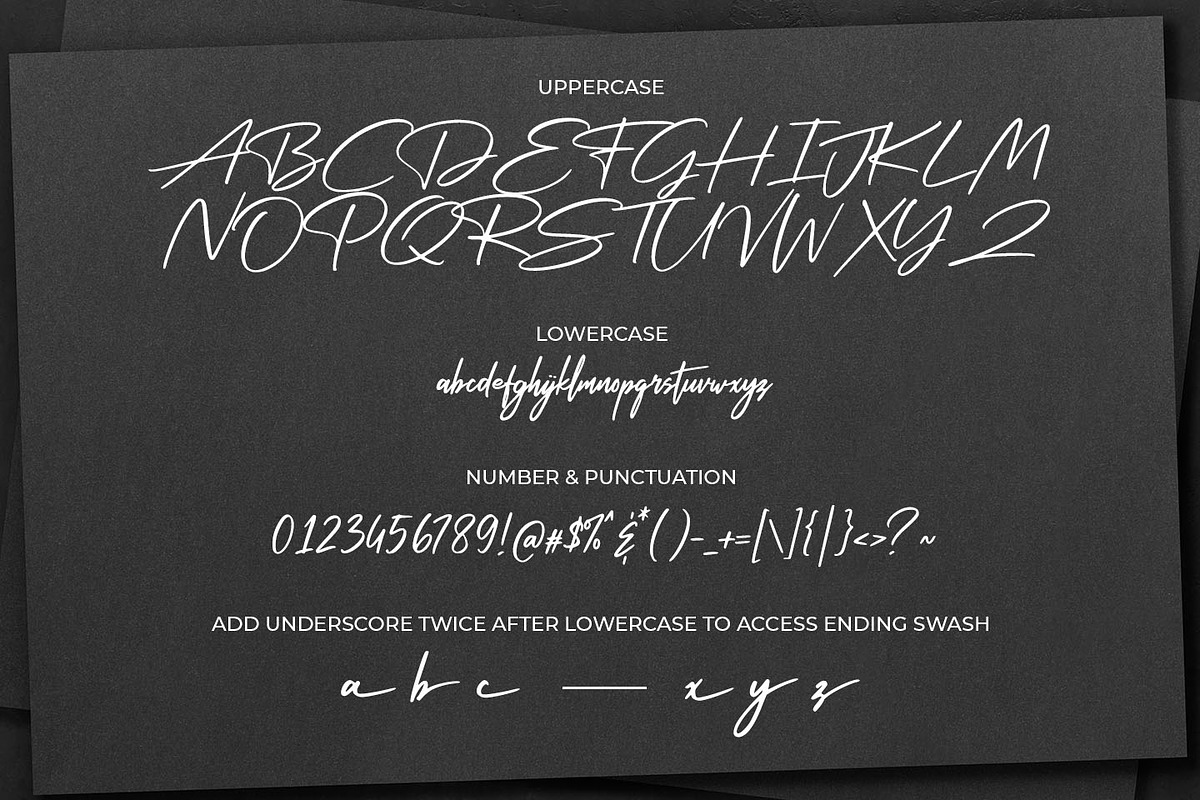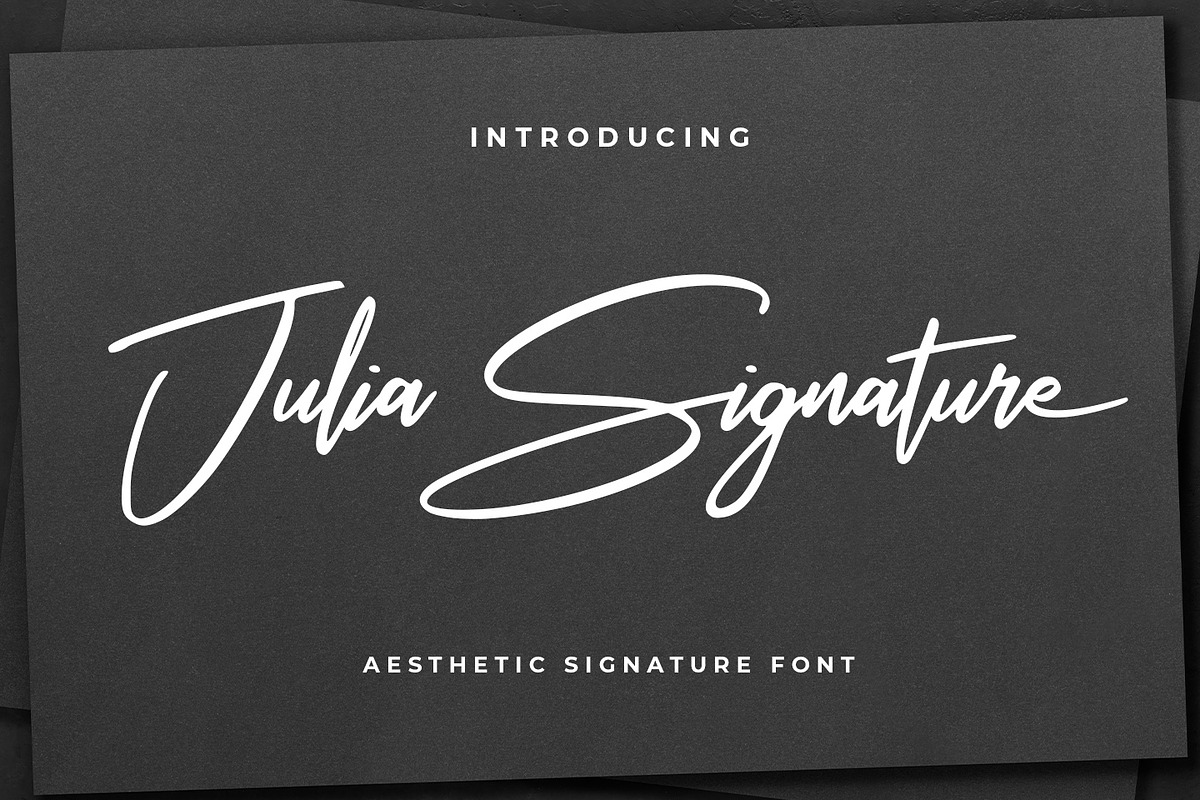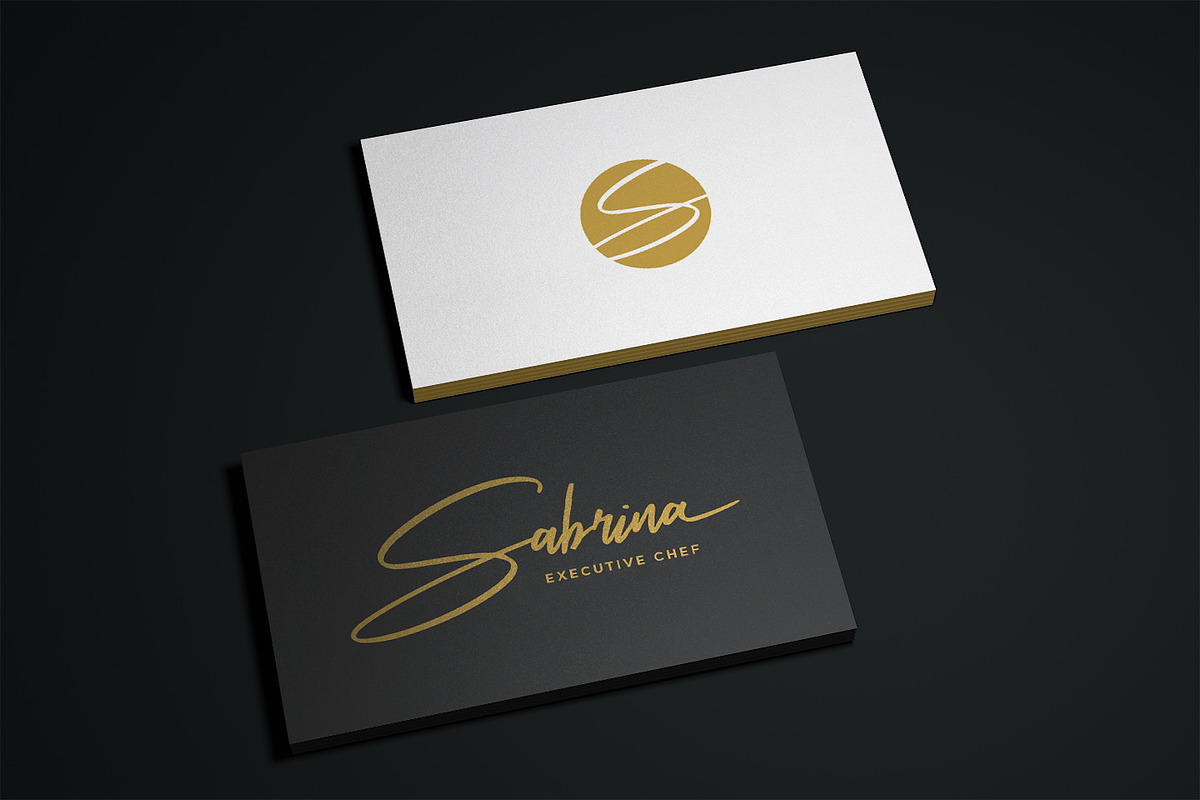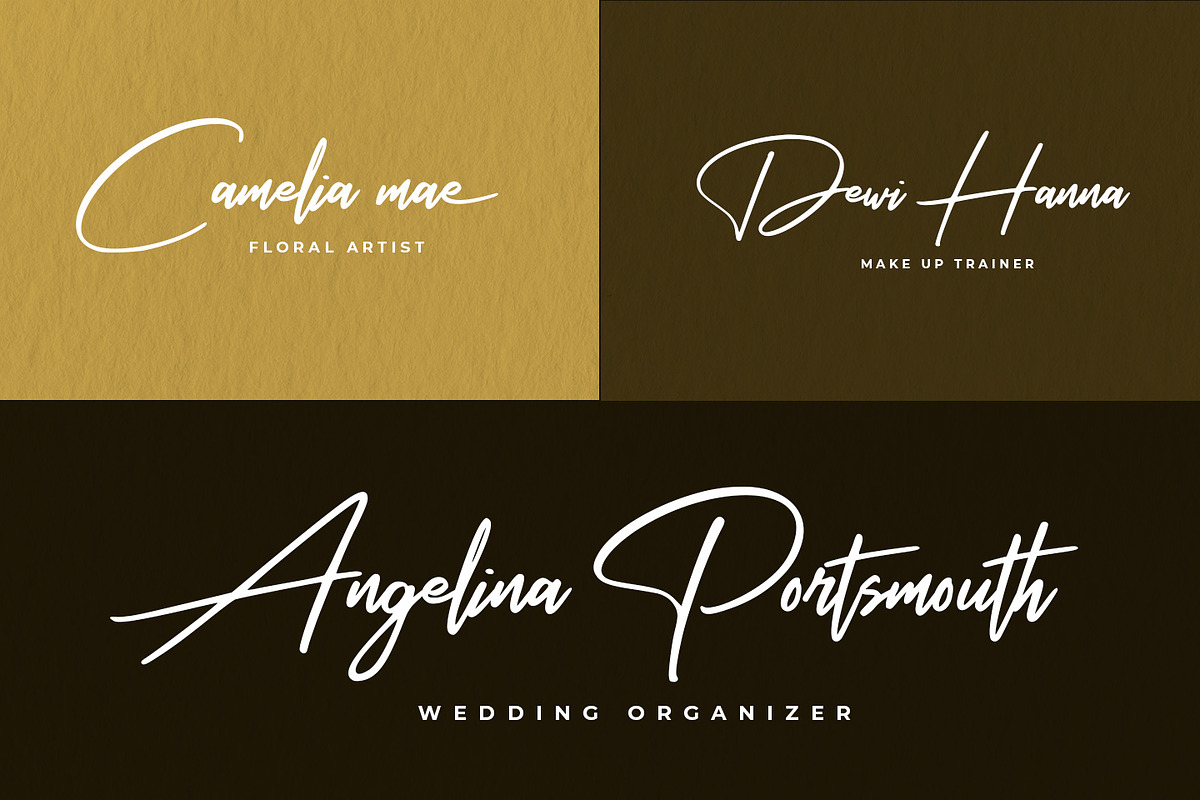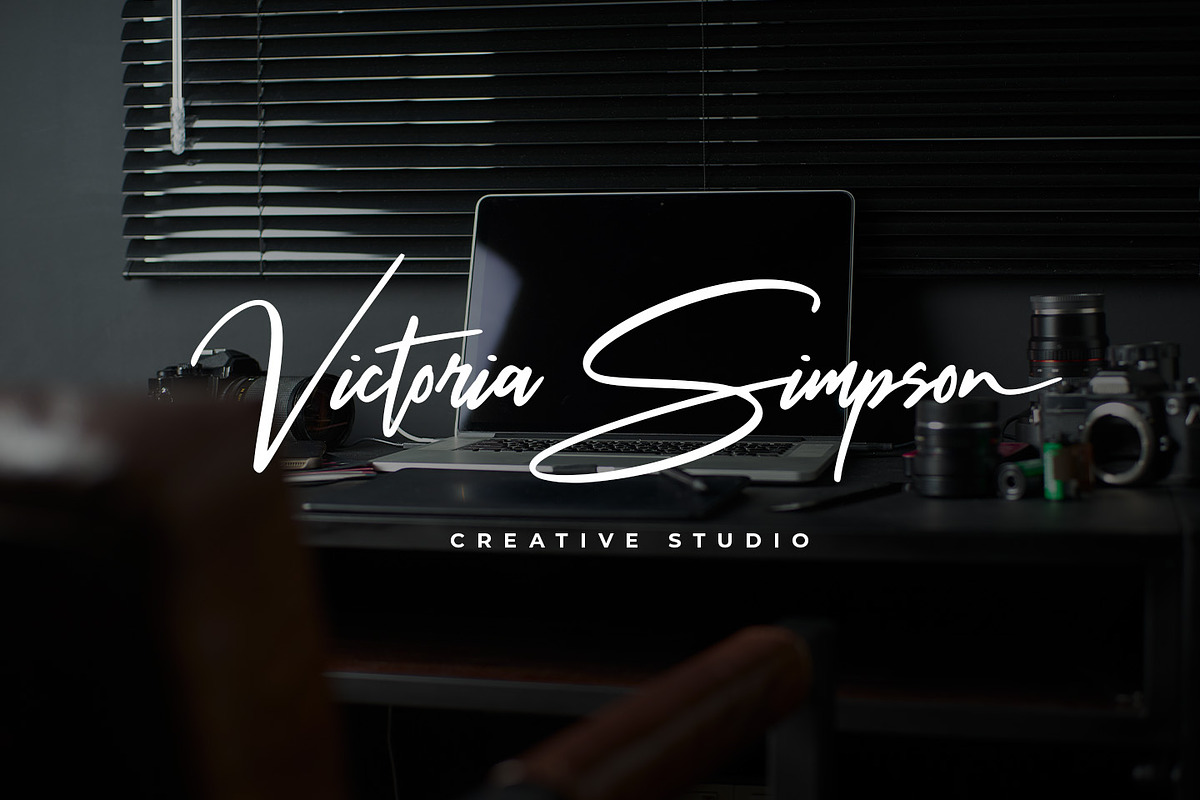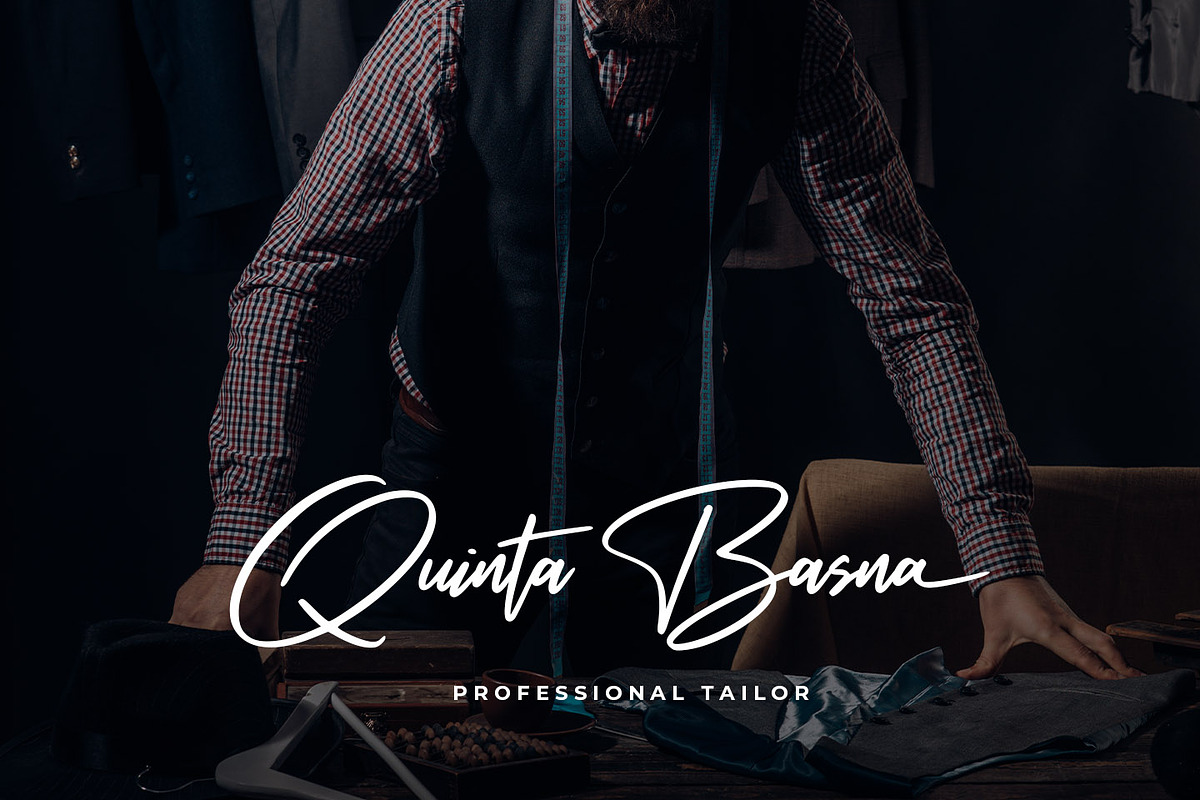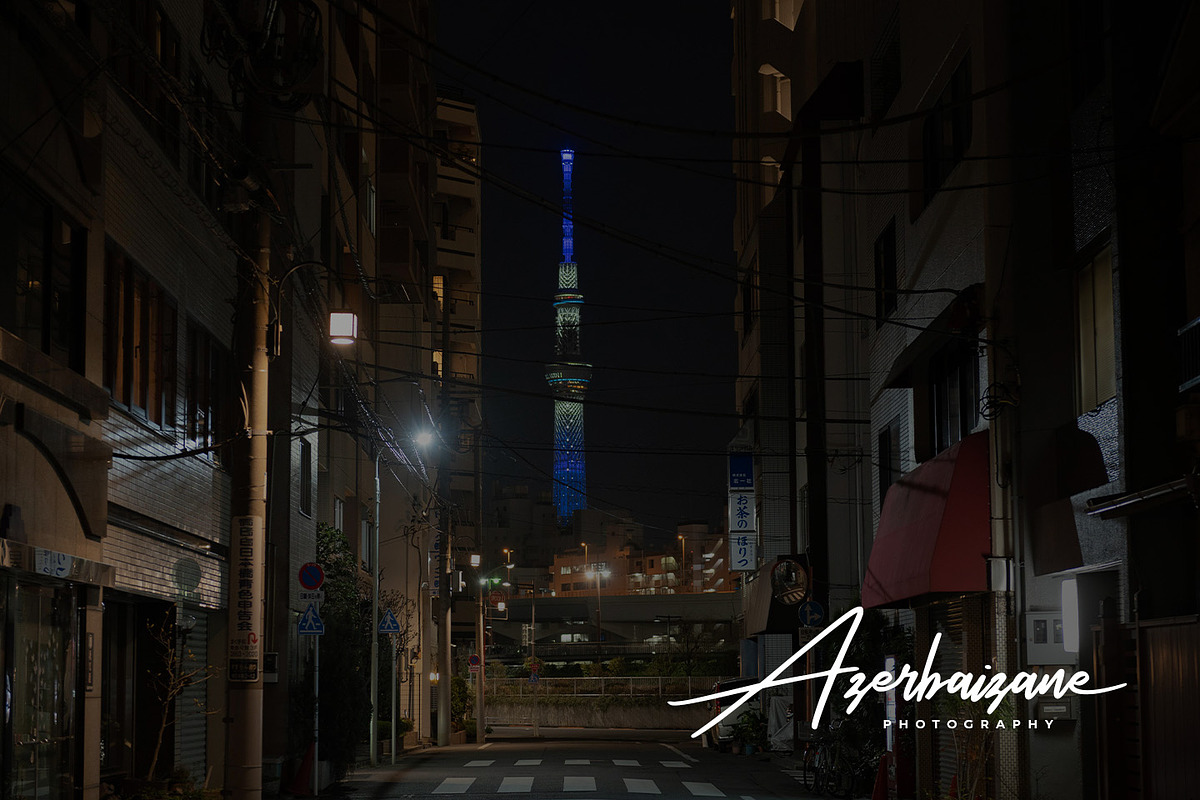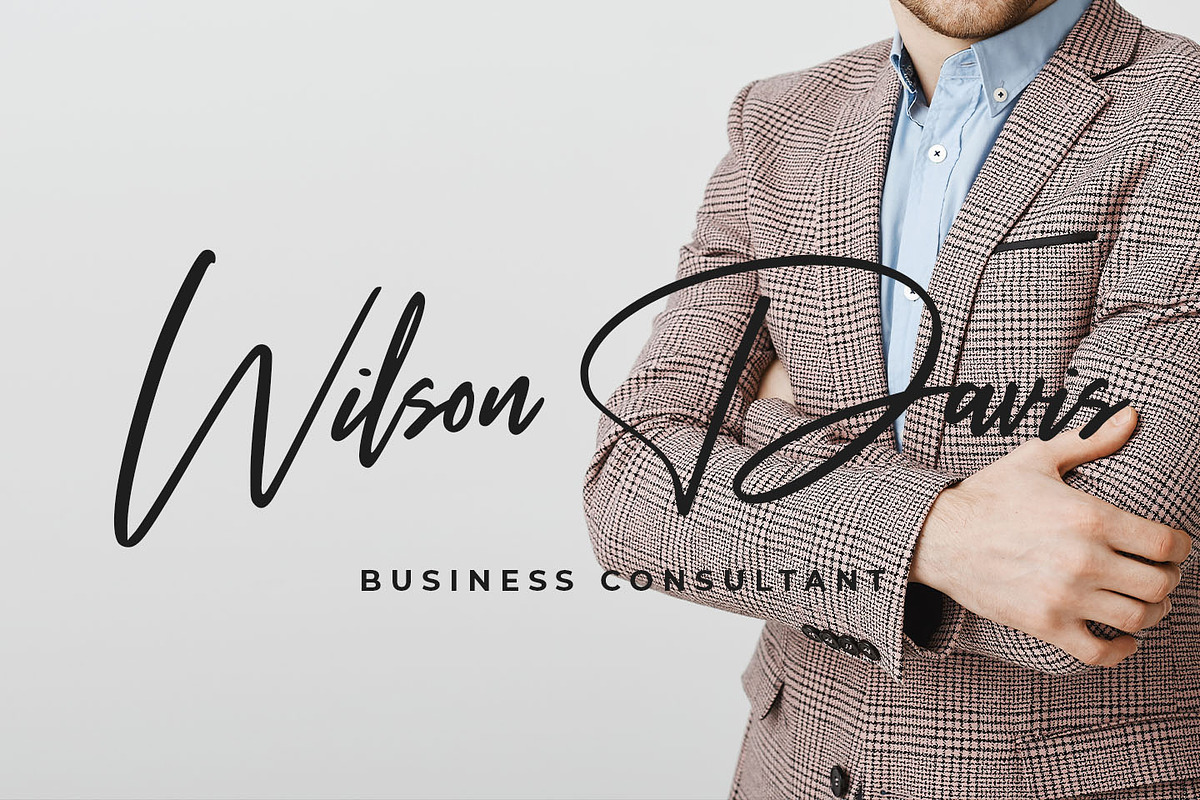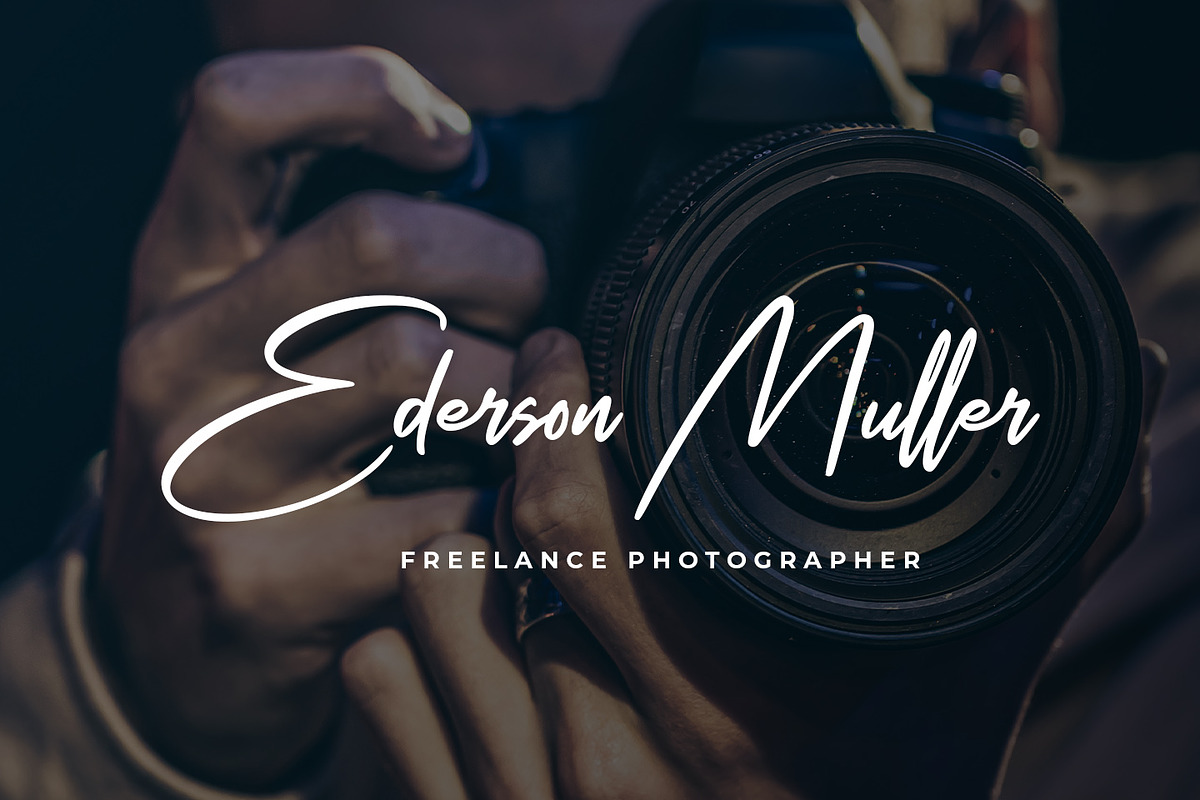
Julia Signature
introducing
JULIA SIGNATURE
-aesthetic signature font-
JULIA SIGNATURE is natural handwritten font. It is great for branding, quotes, logos, t-shirt designs, tote bag designs, cards, banners, social media, and more.
It completed with ending swash. You can add underscore twice after lowercase to access it.
- Ending Swash